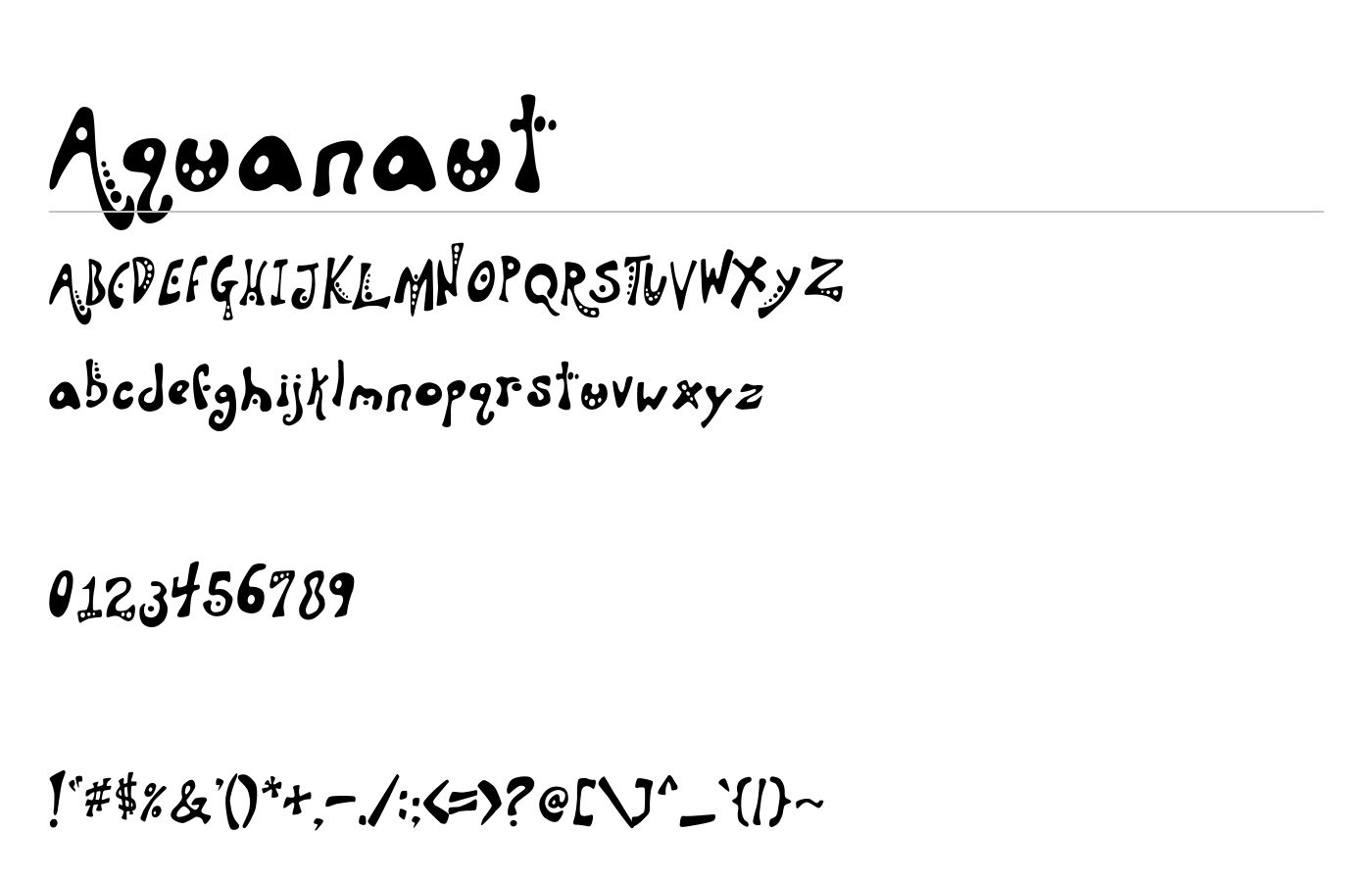
Aquanaut is a playful, hand-drawn display font with organic shapes and quirky dotted accents that evoke an underwater, whimsical feel. Its irregular strokes and unique letterforms make it ideal for creative projects, children's books, or themed graphic designs seeking a fun, informal vibe. This font works best in headlines, logos, or packaging where a distinctive, lively personality is desired.
Aquanaut Font
About Aquanaut Font